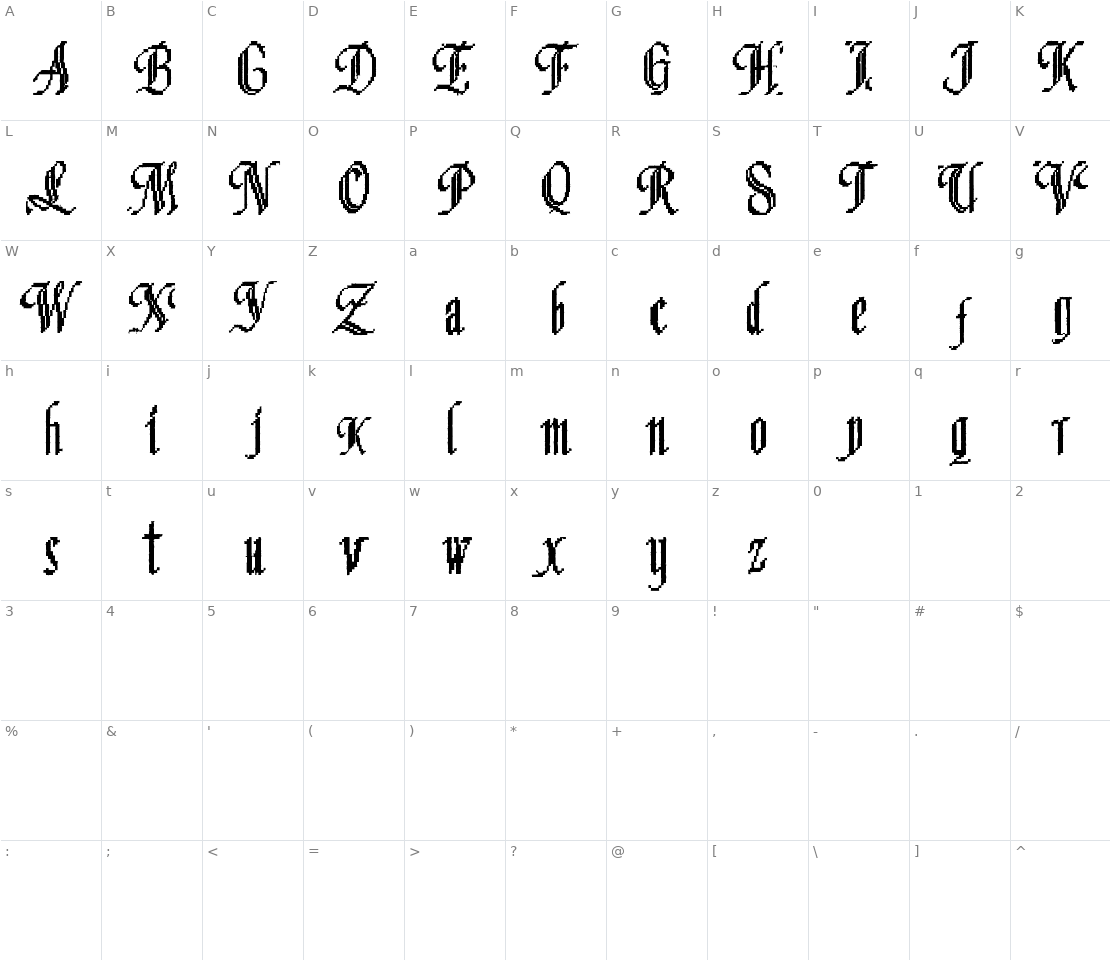
Proton Style
by Ding Bang
Proton Style is a condensed blackletter from Ding Bang that draws on the dense, vertical rhythm of medieval Textura scripts. The narrow letterforms pack tightly together with formal, angular strokes and just enough decorative flourish to feel ornate without becoming illegible. Best kept to headlines, titles, and branding where you want the weight of Gothic tradition with a slightly refined edge.